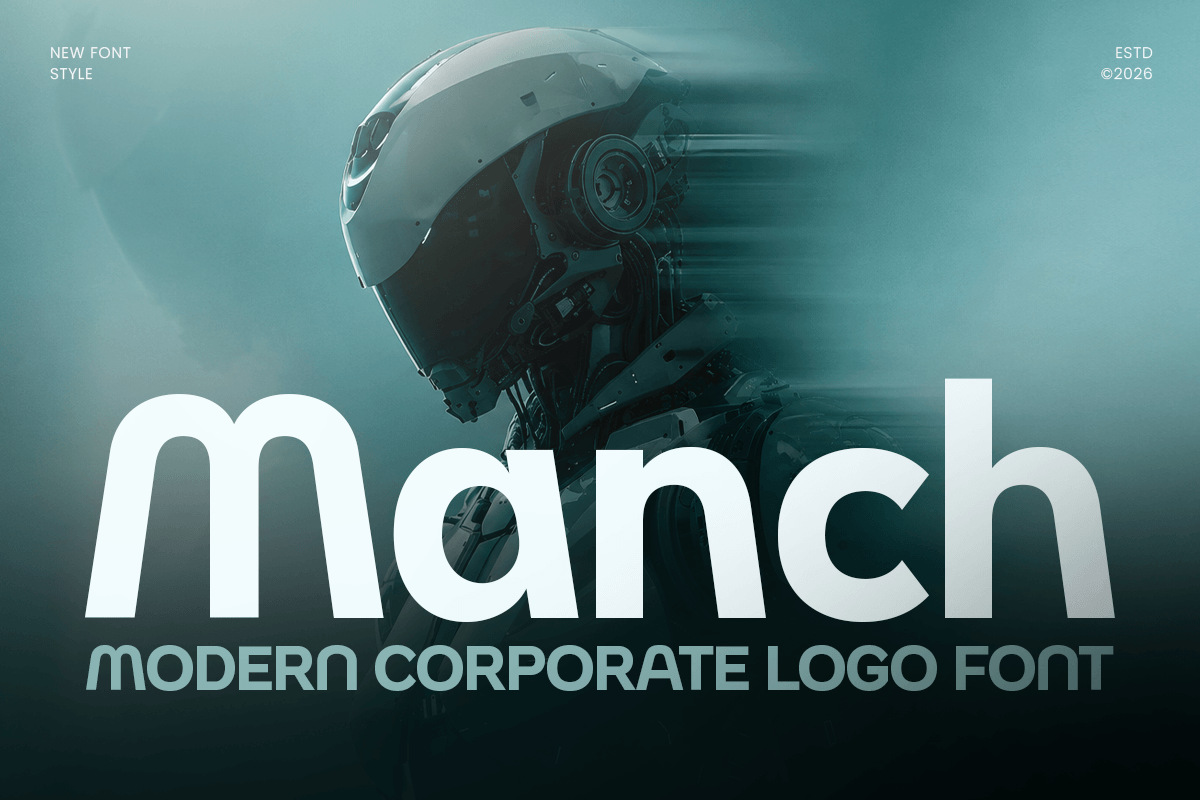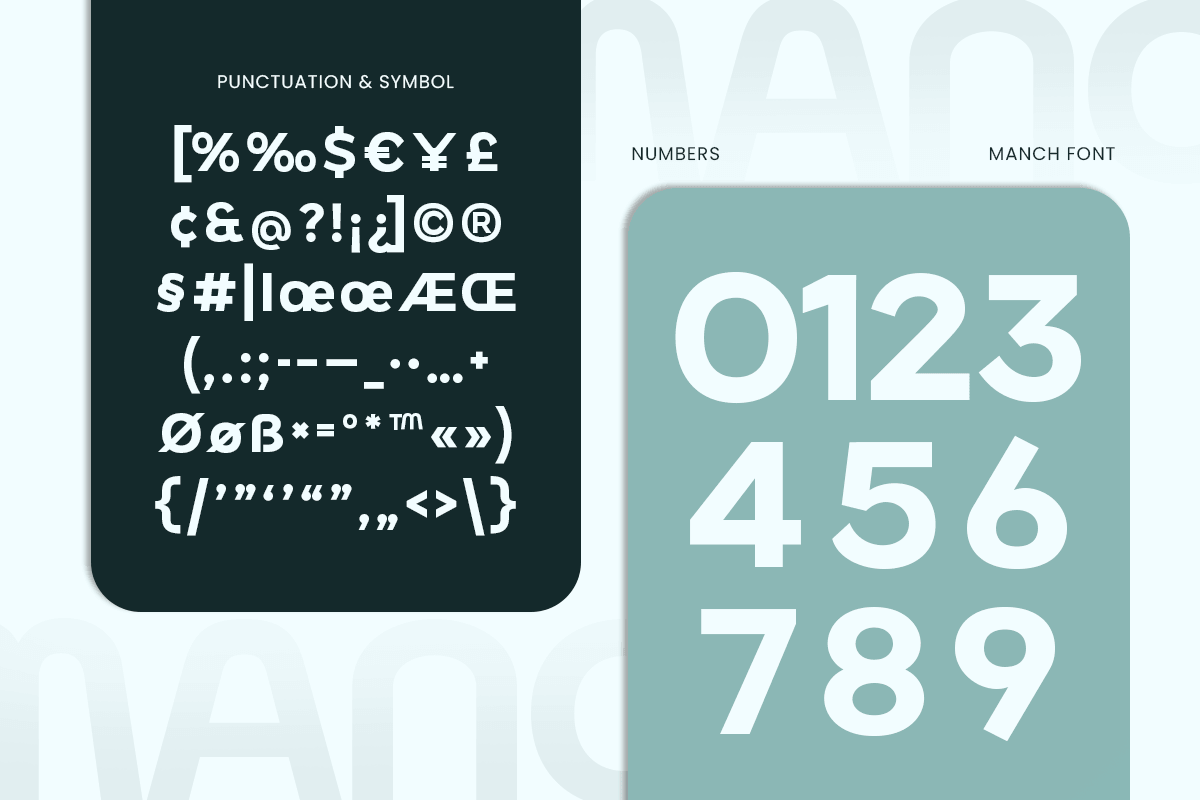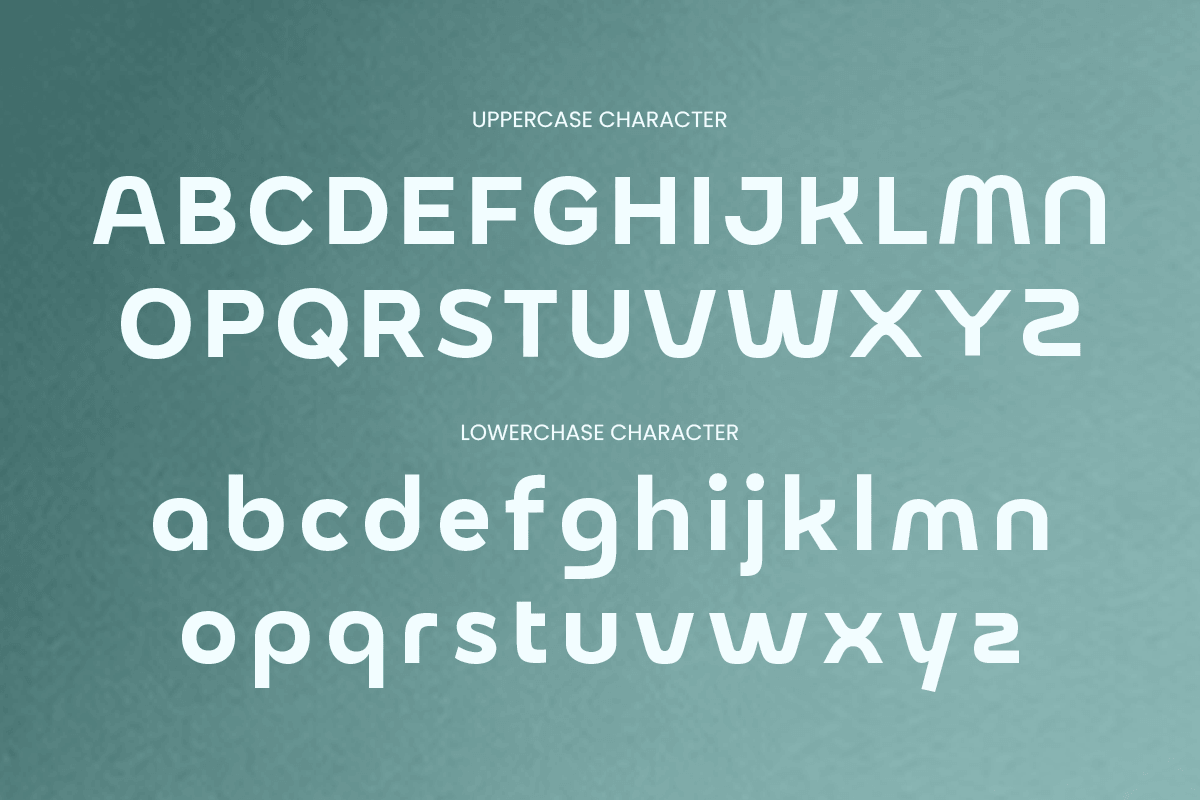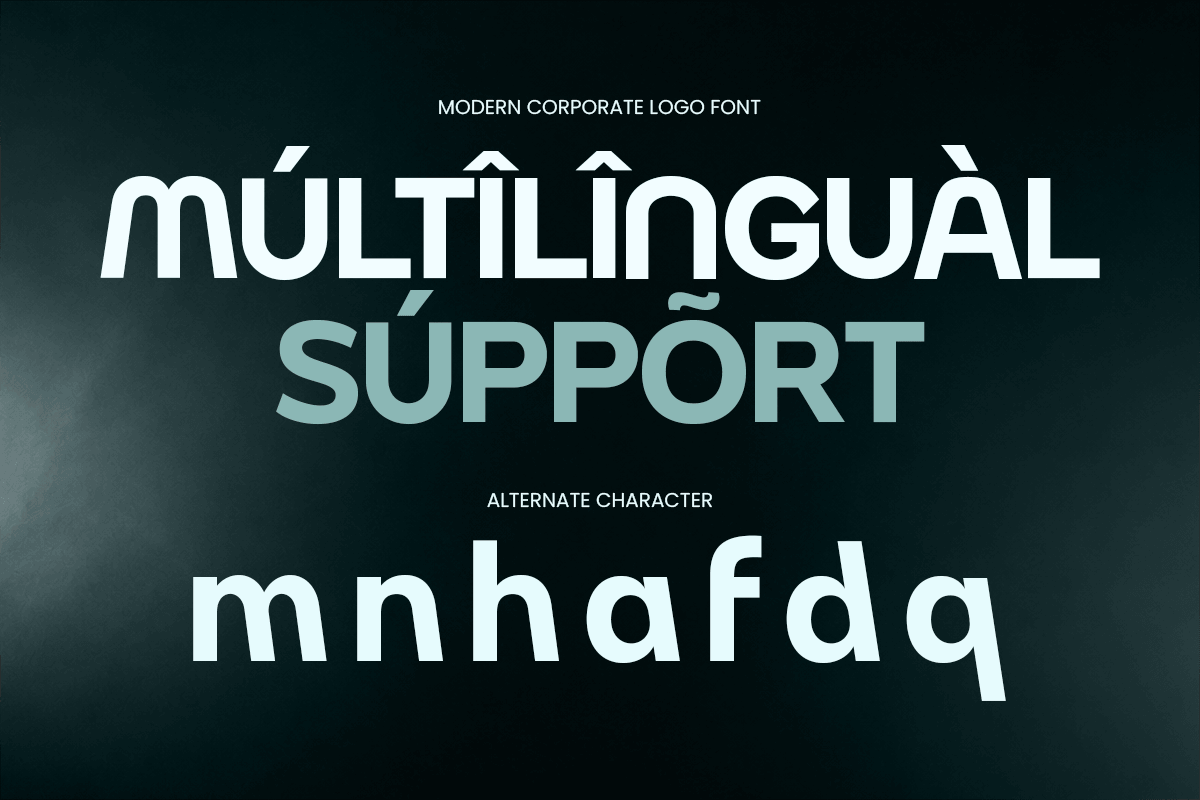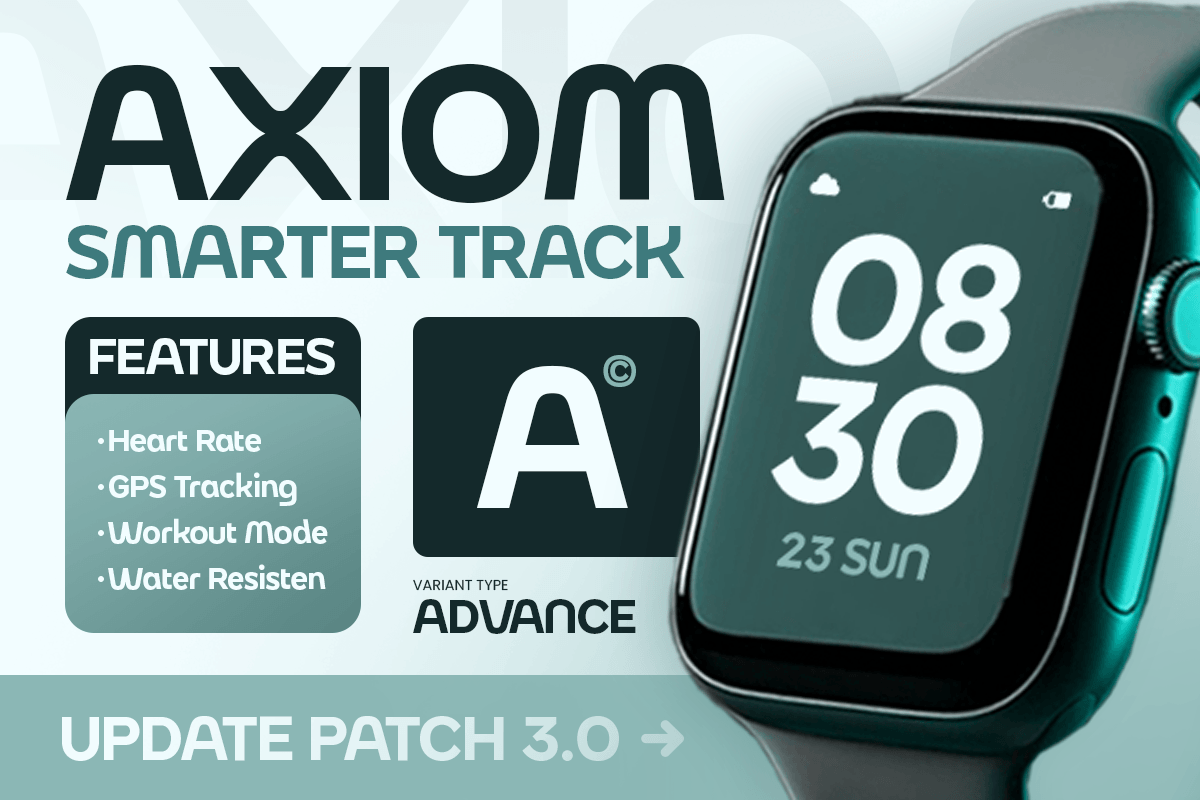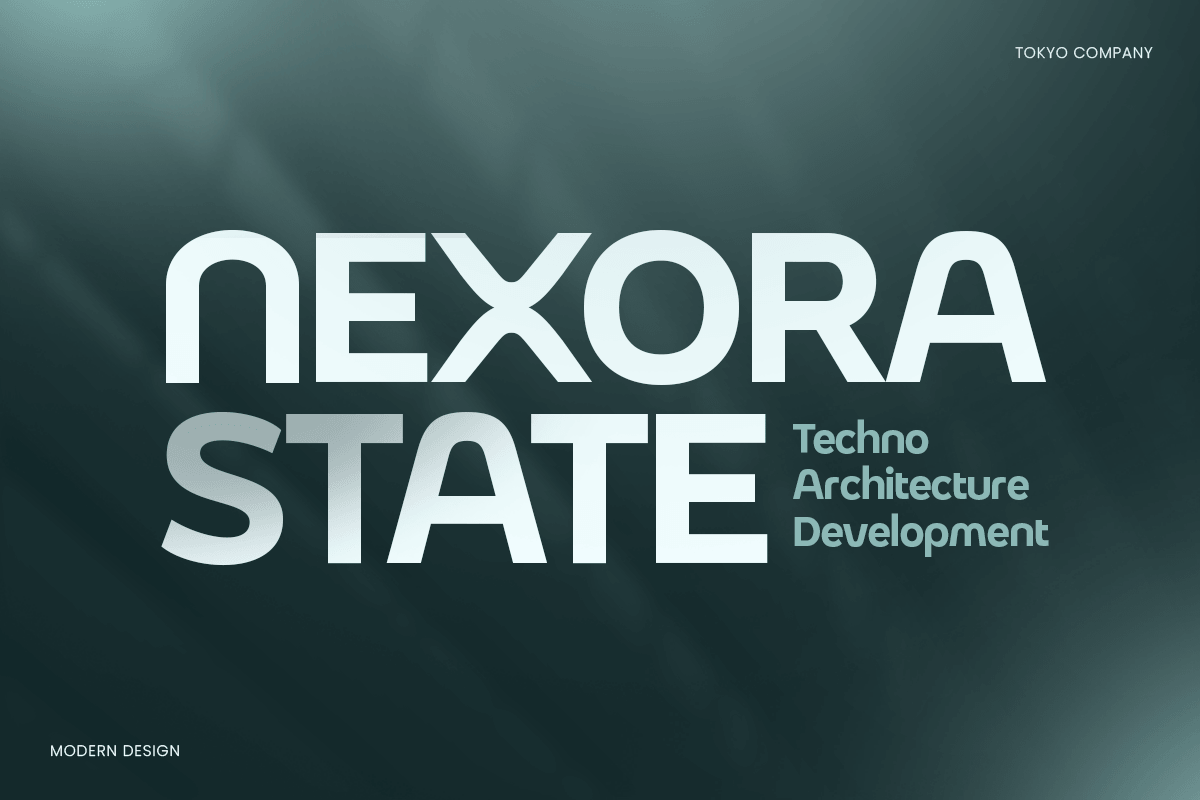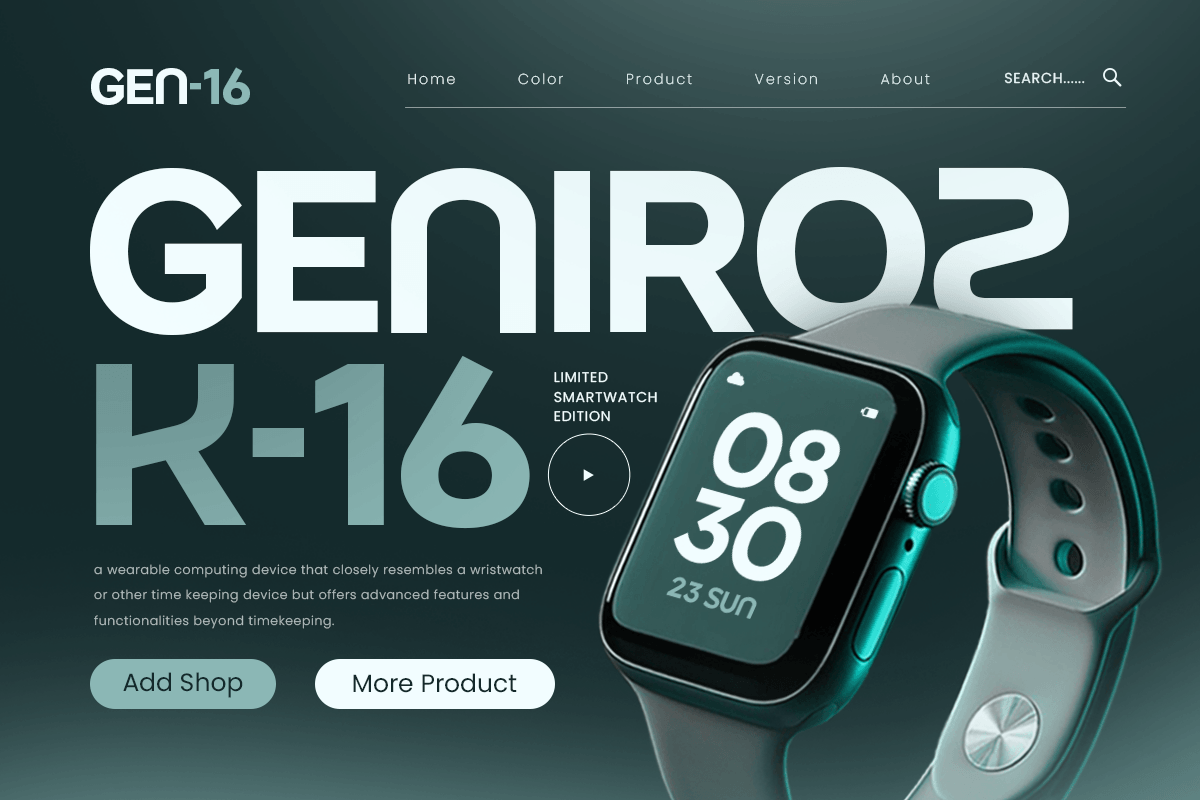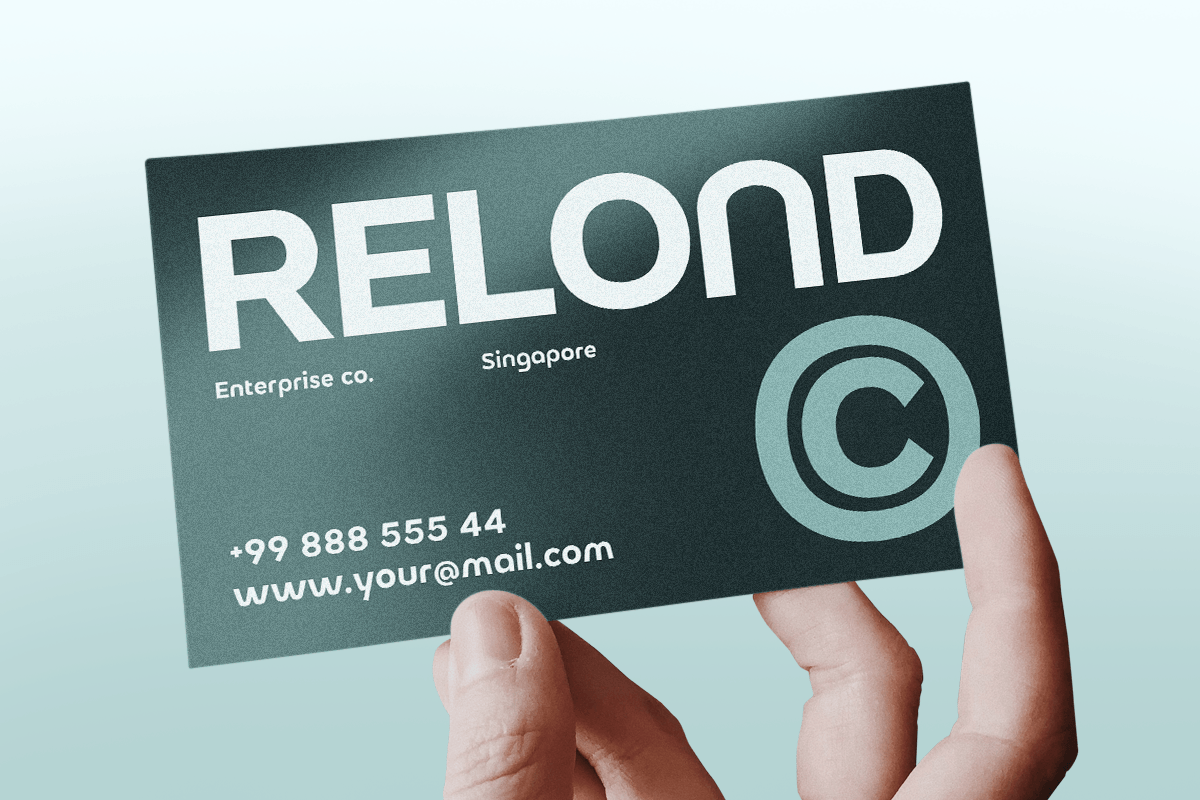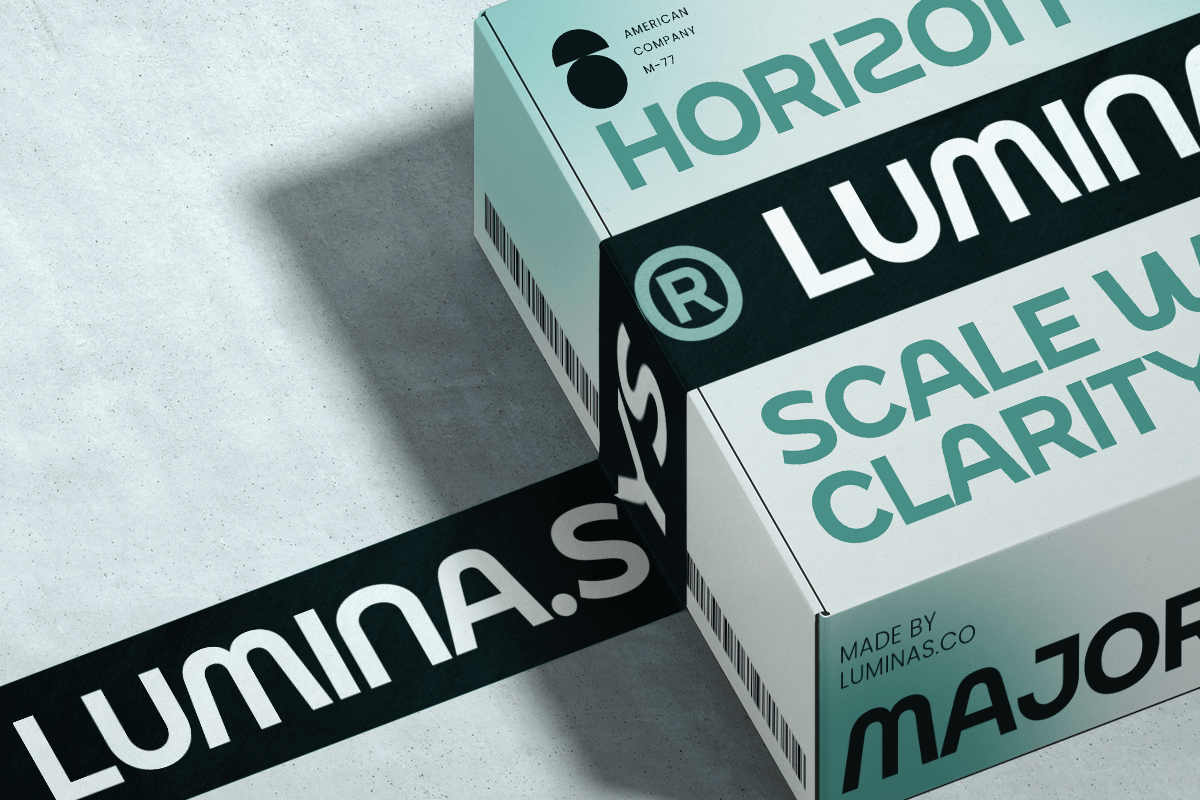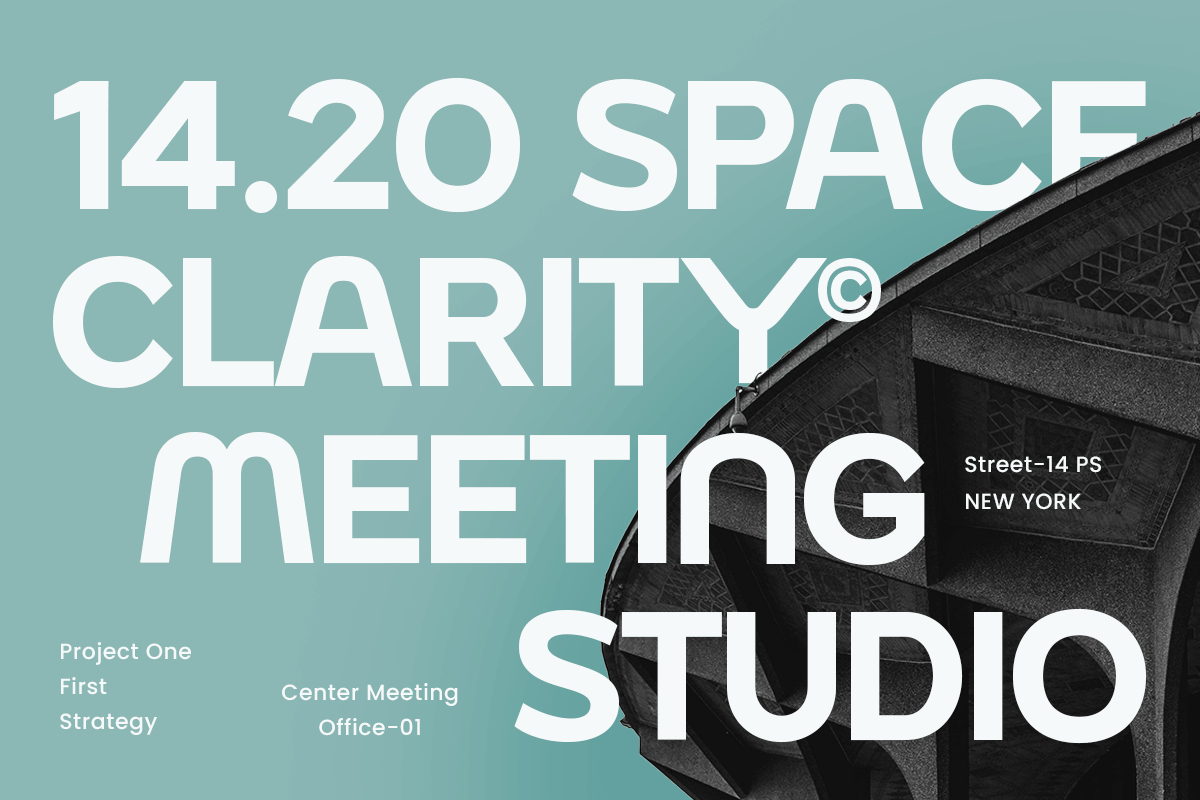
Manch - Modern Logo Font
Manch is a modern corporate logo font crafted for professional branding, clean typography, and strong visual identity. With structured letterforms, balanced proportions, and a refined display style, it creates a confident and memorable presence for modern businesses.
Designed for logos, corporate branding, business identity, presentations, marketing materials, editorial layouts, and digital platforms, Manch combines professional aesthetics with contemporary versatility. Perfect for designers who want a corporate font with clean structure, modern sophistication, and a powerful brand presence.
Manch Font Features
• Uppercase & lowercase
• Corporate logo characters
• Alternates & ligatures
• Professional kerning
Manch Font Perfect For Logo design, corporate identity, business branding, presentation designs, marketing materials, website headers, editorial layouts, social media posts, product labels, and modern typography projects.